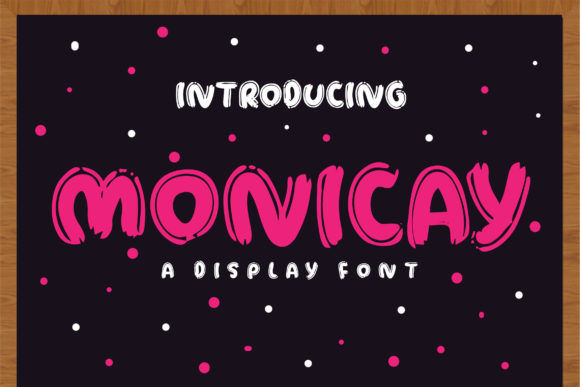
Embark on a typographic adventure with Monicay, the display font that exudes a confident and playful spirit. Crafted with meticulous attention to detail by Handles Creative, Monicay is not just a font; it's an artistic expression waiting to be unleashed upon your creative endeavors.
Immerse yourself in the world of Monicay and discover a font that dances on the page, capturing the essence of joy and carefree spirit. Its bold and playful strokes evoke a sense of nostalgia, reminiscent of classic sportswear and vintage advertisements. Monicay is the perfect companion for designs that demand attention, whether it's a vibrant t-shirt design, a captivating logo, or a striking advertisement.
With Monicay, you'll unlock a world of creative possibilities. Its versatility knows no bounds, adapting effortlessly to a myriad of design styles. Envision your designs adorned with Monicay's bold and playful characters, each letter a stroke of artistic genius. Unleash your creativity and let Monicay ignite your imagination.
Dive into the world of Monicay and experience the transformative power of typography. Let its bold and playful strokes captivate your audience, leaving a lasting impression that lingers in their minds. Monicay is more than just a font; it's an artistic journey waiting to be embarked upon, a font that will elevate your designs and ignite your creative spirit.